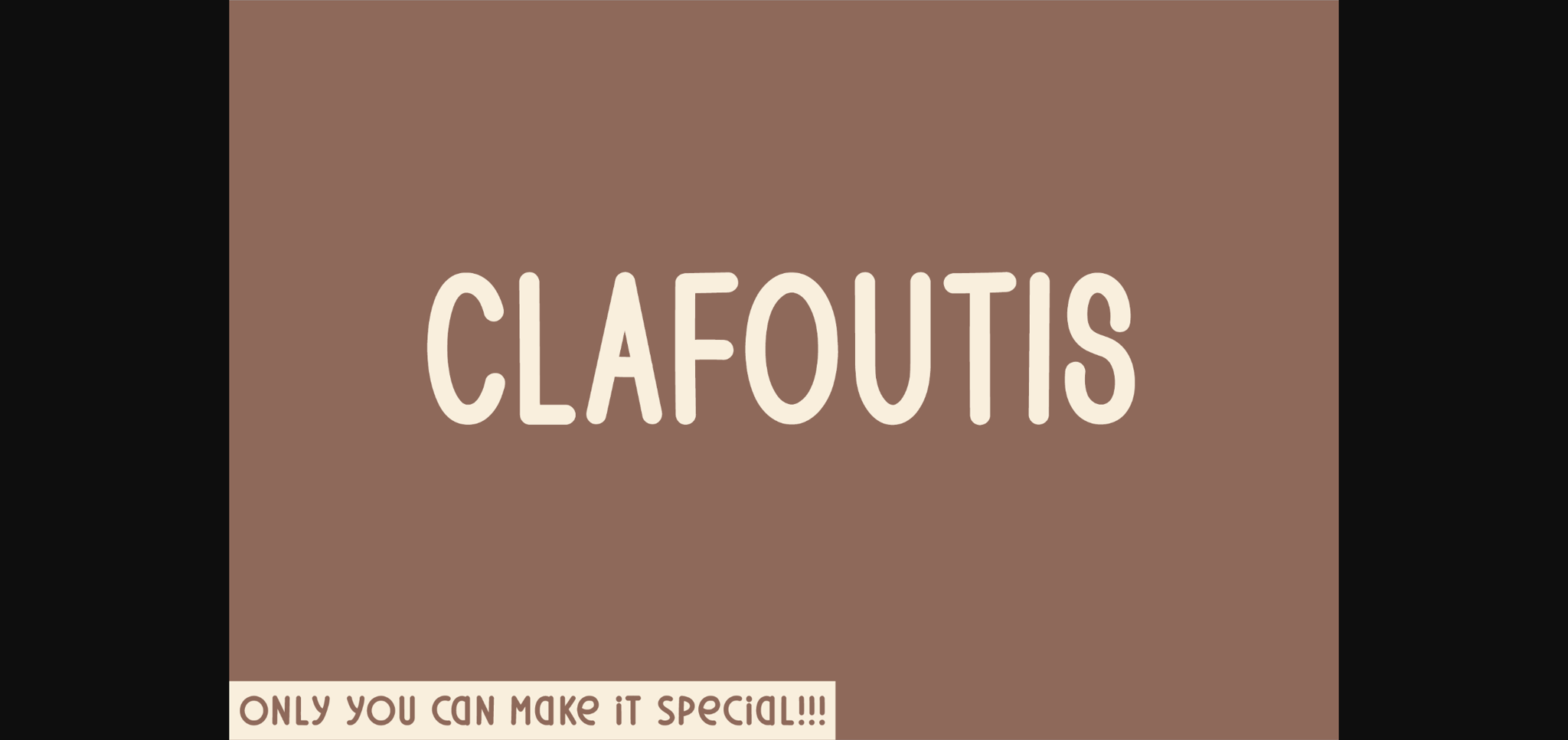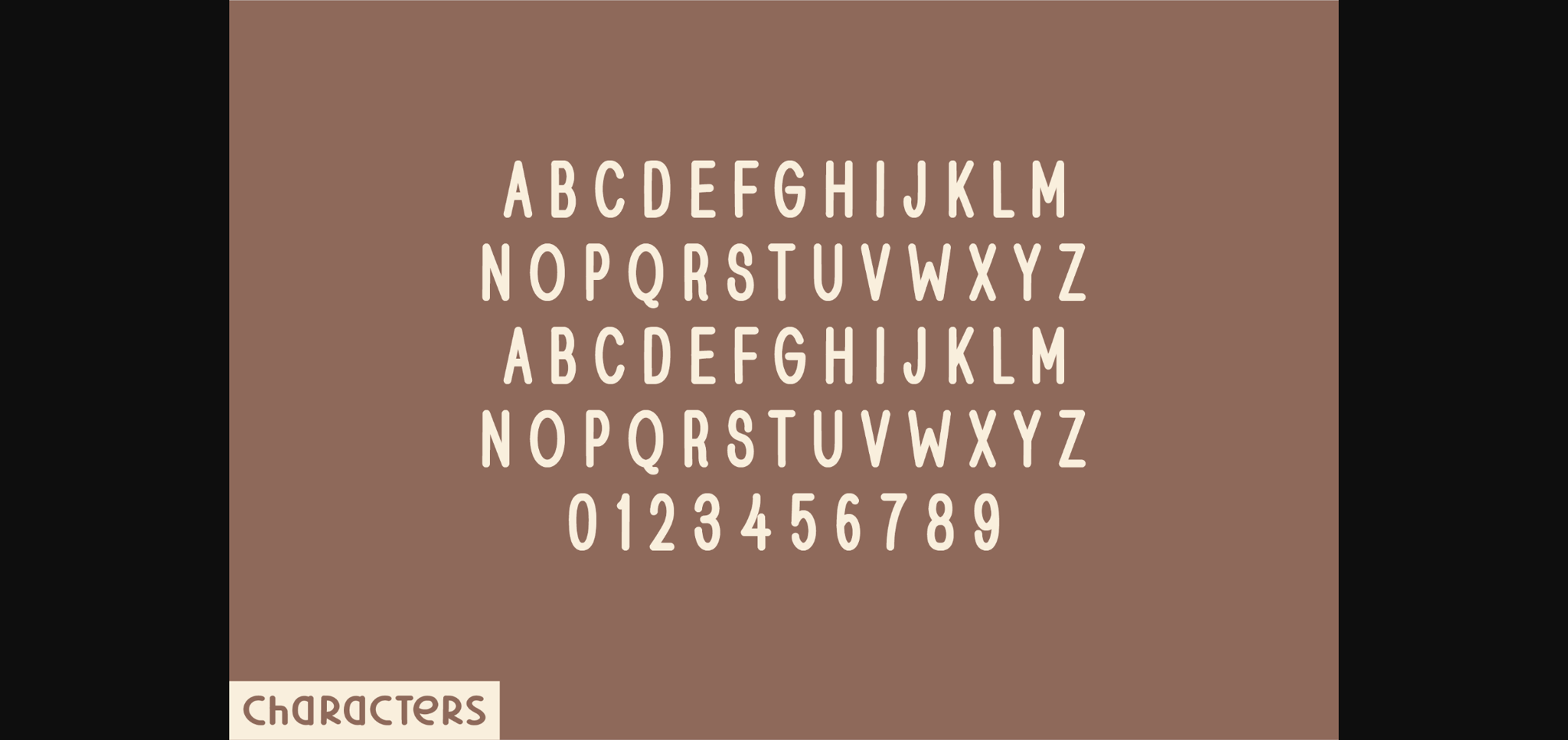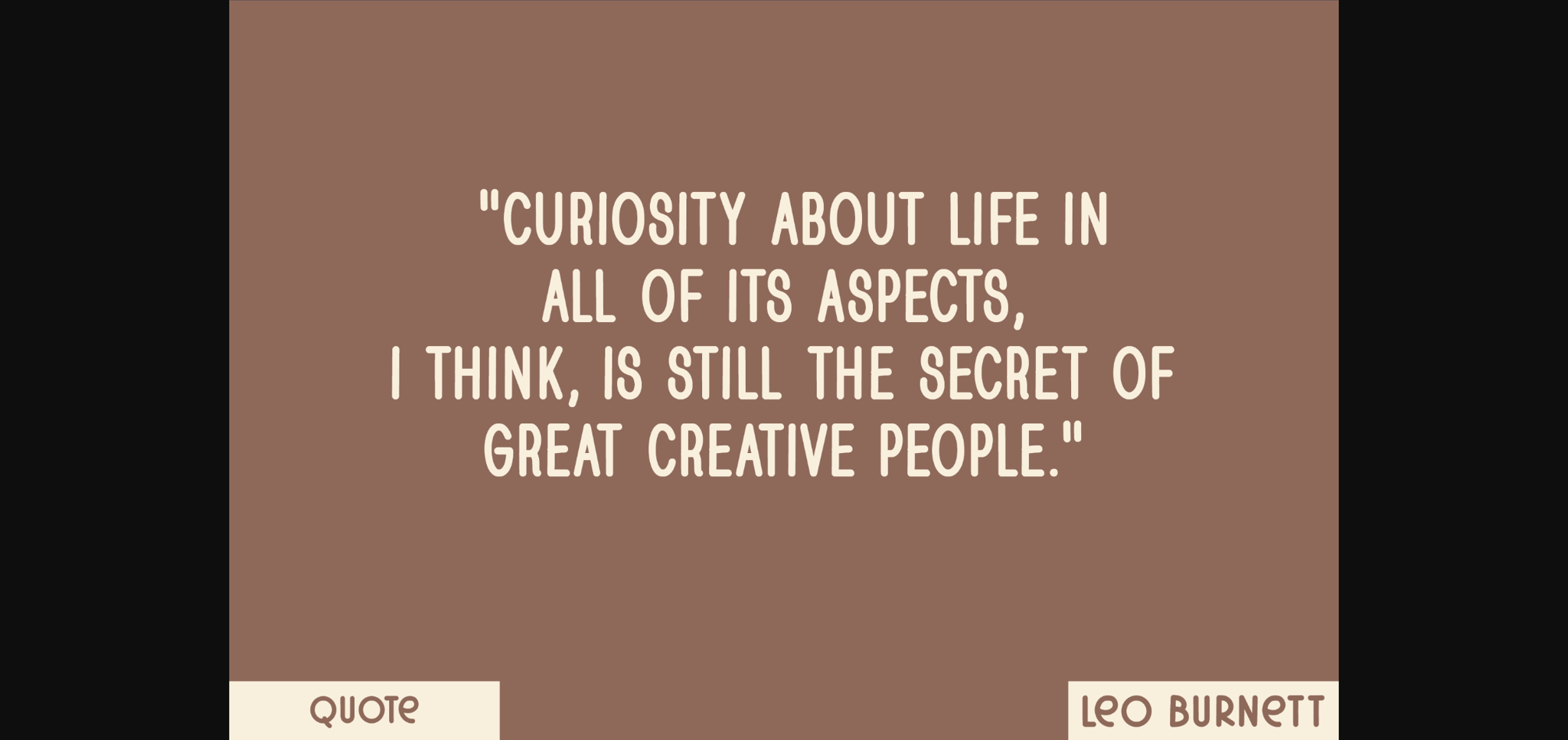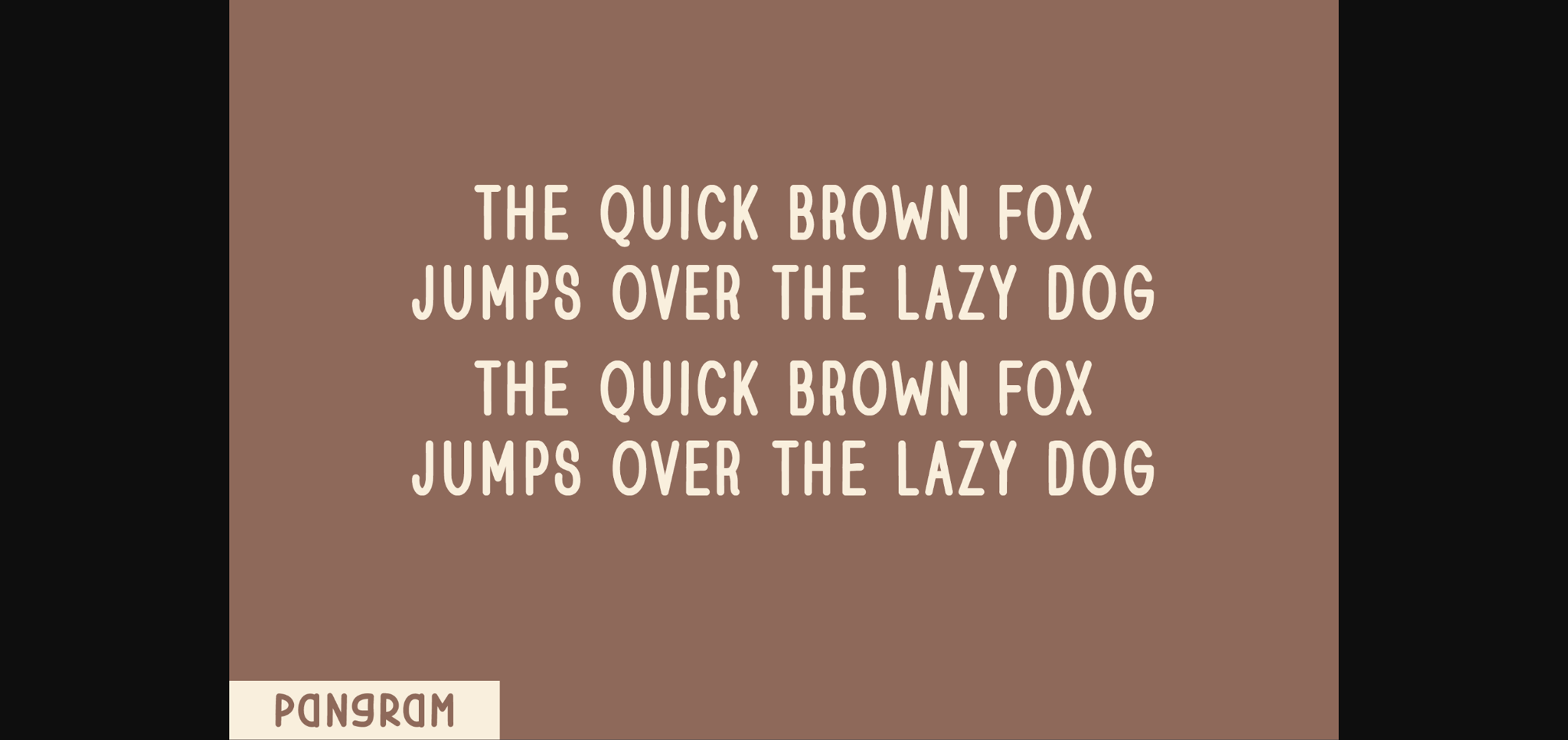
About Clafoutis Font
Presenting ‘Clafoutis’, an enchanting sans serif display font committed to making your designs aesthetically pleasing. This unique font exhibits uppercase letters, numbers, and an array of functionalities, all elegantly designed to beautify your creative projects. Clafoutis thrives in its charming detailing, as each letter ending is softly rounded, exuding a delightful handwritten feel. The font will easily find its place in design projects seeking a natural, adorable finish. Clafoutis is not merely a font—it’s a significant addition to designs yearning for a playful yet organic charm.